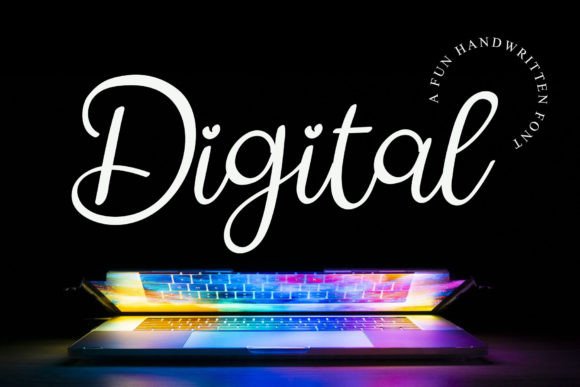
Digital Font
About Digital Font
DigitalFont is a delicate handwritten script that combines elegance with timeless beauty. Featuring graceful lines and balanced characters, this typeface stands out as a true masterpiece. Because of its versatile design, Digital Font is perfect for wedding invitations, greeting cards, posters, logos, business cards, and branding projects.
A Handwritten Typeface with Timeless Elegance
Handwritten fonts bring warmth and uniqueness, and Digital Font takes this to the next level with refined strokes and smooth rhythm. Its balanced structure ensures readability, while its artistic curves create sophistication. Moreover, its elegant style adapts seamlessly to both modern and traditional layouts. As a result, this handwritten script is a dependable option for designers seeking beauty and originality.
For personal stationery and event projects, Digital Font is an excellent choice. For example, it can transform a wedding invitation into a keepsake full of elegance. In addition, it works beautifully for thank-you notes, holiday greetings, and birthday cards. Because of its delicate charm, every design feels heartfelt, stylish, and memorable.
A Script Typeface for Logos and Branding
Brands and businesses that want to showcase elegance can rely on Digital Font. It adds sophistication and personality to logos, product labels, and packaging. Furthermore, on social media, it enhances posts, banners, and promotional graphics with style. When paired with minimalist sans serif fonts, Digital Font creates harmony between professionalism and creativity.
Another strength of Digital Font is its adaptability across mediums. In print, it looks stunning on brochures, magazines, posters, and merchandise. Digitally, it elevates websites, blogs, and presentations with authenticity. Since it scales clearly in both small and large sizes, this handwritten script remains practical for a wide variety of creative applications.